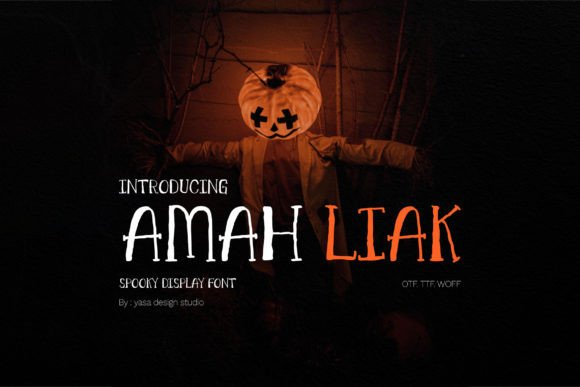
Introducing Amah Liak Font, your essential font for a hauntingly captivating Halloween experience! With its spectral charm and abstract curves, this font will cast a spell on your designs, transforming them into thrilling masterpieces.
Embark on a creative adventure with Amah Liak, the font that whispers mystery and conjures spooky elegance into your design projects. Its bewitching aesthetics and enchanting aura will send shivers down your spine, leaving an unforgettable impact on your audience.
Amah Liak's spooky brilliance shines brightest in Halloween-themed projects. Create spine-tingling posters that will make hearts race, craft eerie greeting cards that send chills down the spine, and design websites that cast a magical spell on visitors. Its versatility extends to social media posts, Halloween art, illustrations, and party decorations, making it an indispensable tool for all your spooky creations.
Unleash your imagination and conjure an atmosphere of intrigue and enchantment with every use of Amah Liak. Its compatibility with a diverse range of design software ensures seamless integration into your creative workflow, allowing you to conjure up chilling designs effortlessly.
Experience Amah Liak, the font that brings your Halloween designs to life. Its enchanting essence will elevate your projects, leaving a trail of fascination and wonder in its wake. Dive into the world of Amah Liak and let your creativity run wild under the moonlight's glow.